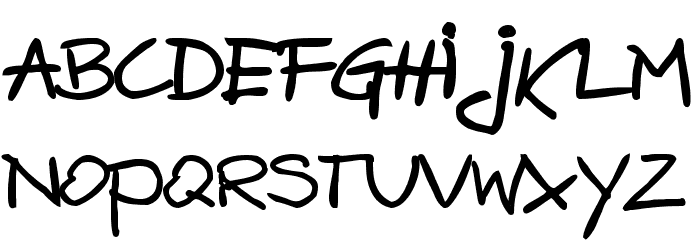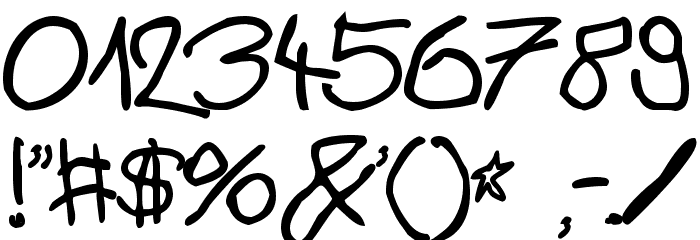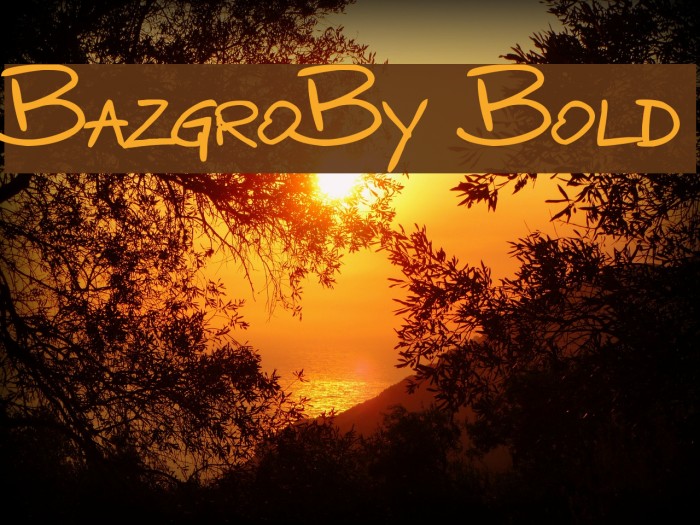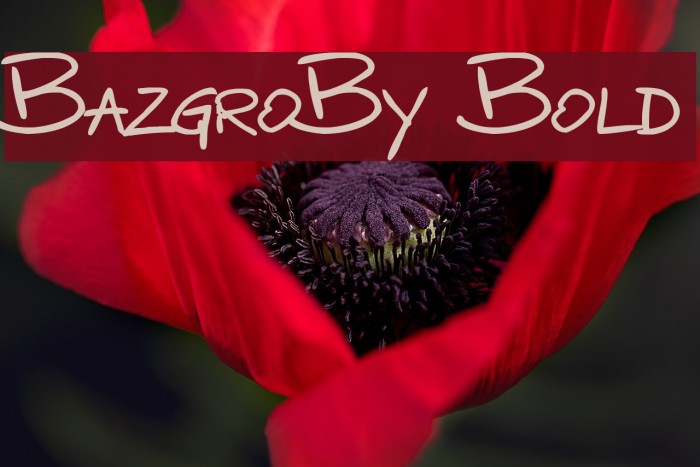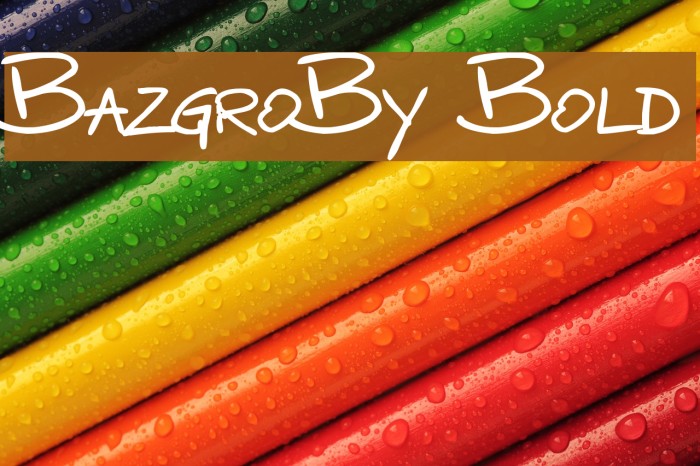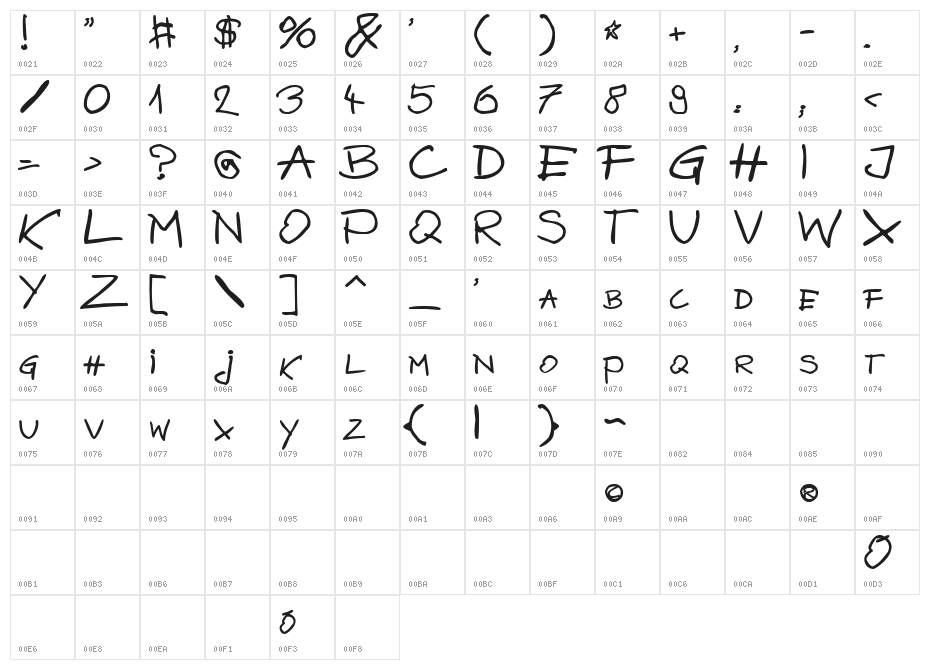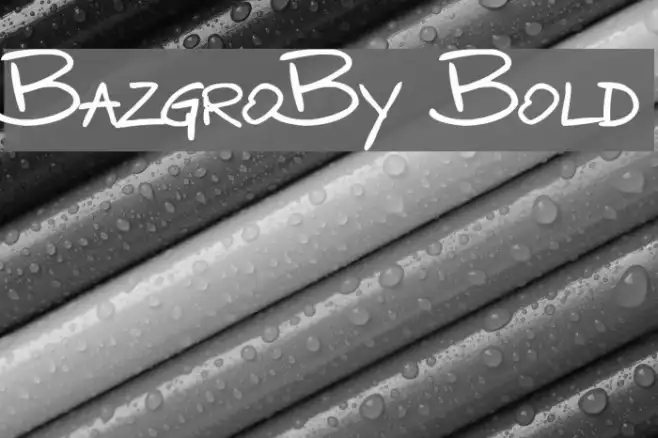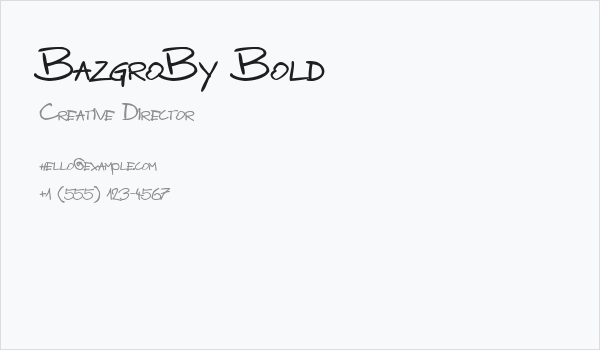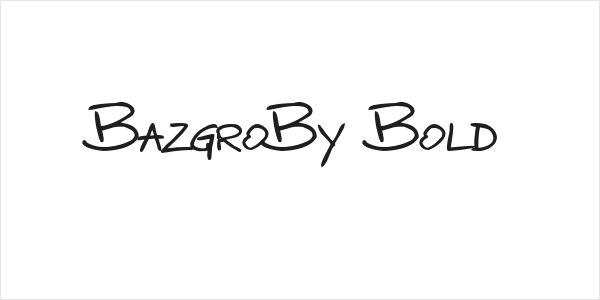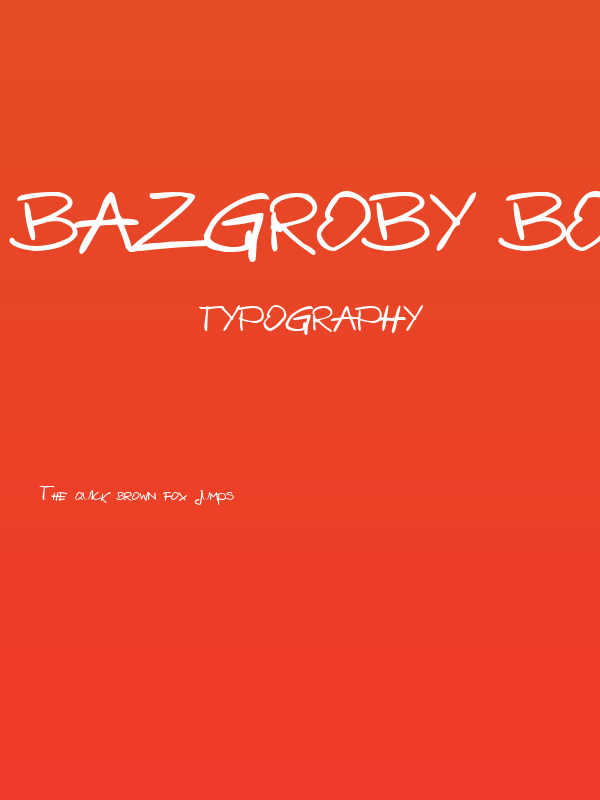
BazgroBy Bold Font
This font features a bold, handwritten style with a playful and energetic appearance. The characters are slightly irregular, giving it a casual and informal feel. The strokes are thick and consistent, creating a strong visual impact. The uppercase and lowercase letters maintain a cohesive look, while the numbers and special characters blend seamlessly with the overall design. The font's dynamic nature makes it suitable for projects that require a personal touch or a sense of spontaneity.
- Proposed Projects: Ideal for greeting cards, posters, children's books, and creative branding projects.